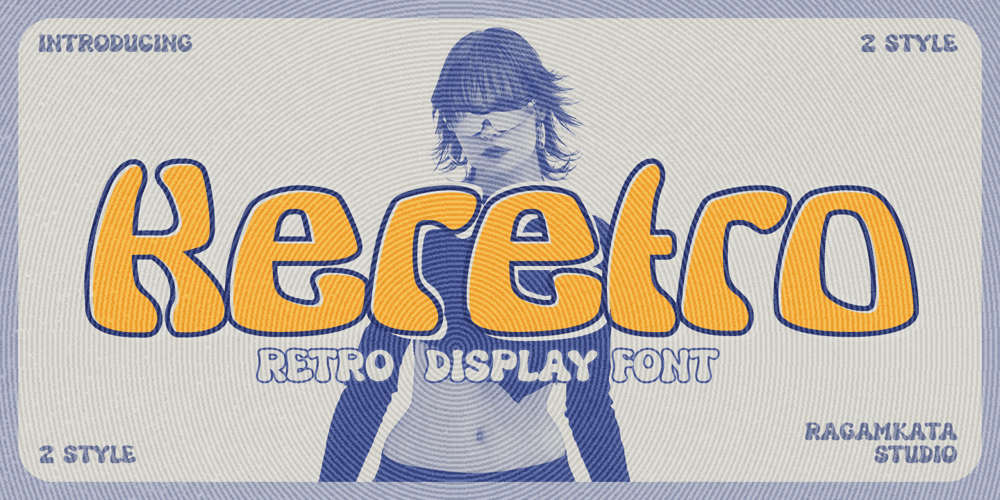
Keretro
Keretro font
Keretro Font Family was designed by Yogiswhara Dio Prakoso Riadi and published by RagamKata. Keretro contains 2 styles and family package options. Get ready to groove with our latest creation, Keretro font!Keretro transports you to the golden era of the past, evoking a sense of nostalgia that resonates with pop culture enthusiasts. Seamlessly blending boldness and authenticity, they captivate the hearts of your audience, adding a unique and irresistible touch to your brand identity.Keretro has 2 widths: Regular and Outline so can be perfect for any retro project like logotype, branding, title, packaging, and many more.